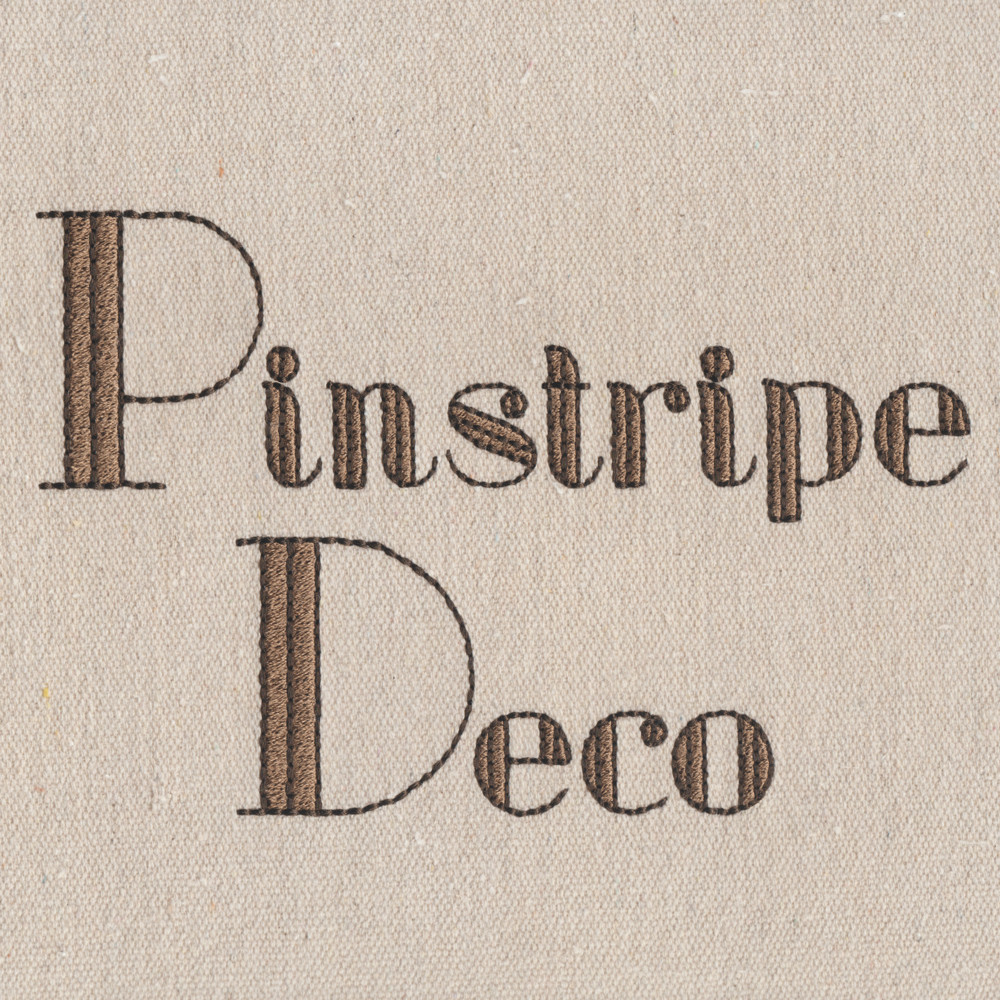
777 Pinstripe Deco Fill & Floss Font
777 Pinstripe Deco Fill & Floss Font comes in 1", 1.5", 2", 2.5", 3", 3.5", 4", 4.5", 5", 5.5" and 6" heights based on the capital "A". All sizes included in purchase price. Features uppercase letters, lowercase letters, numbers and 13 punctuation marks as show in the character chart on this page. All characters finished in Fill Stitch with 2nd color Floss Stitch outlines and accent parts. Floss Stitch stitches out on all embroidery machine using standard embroidery thread.